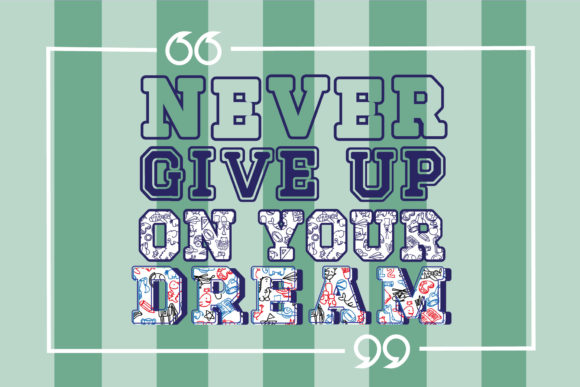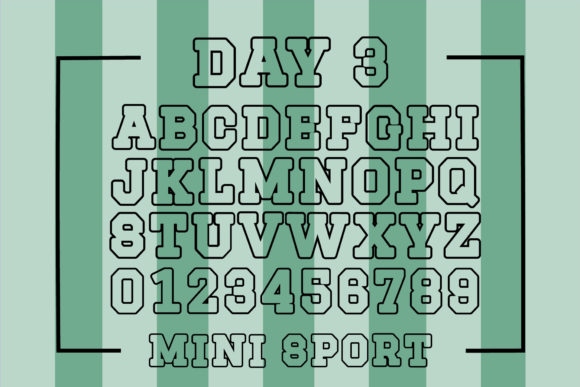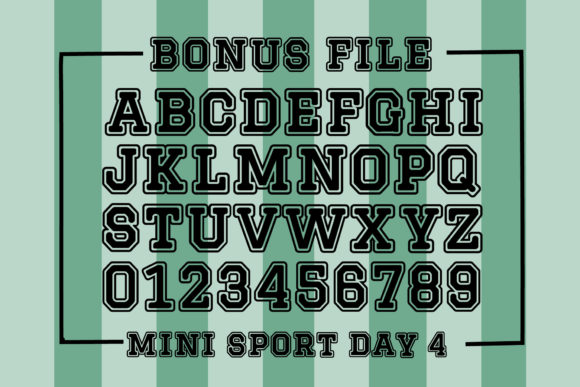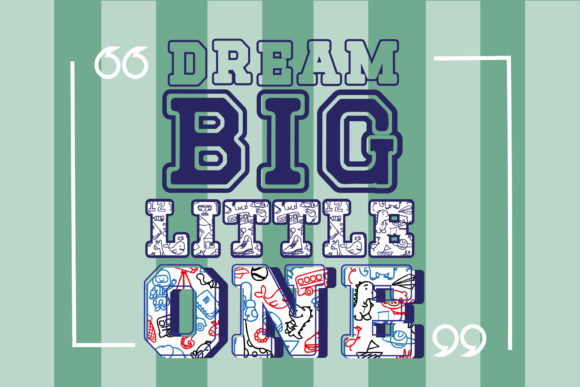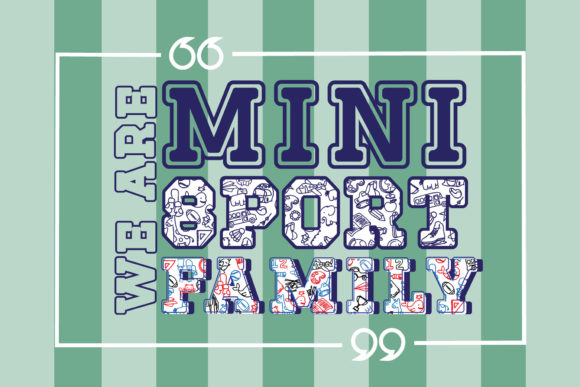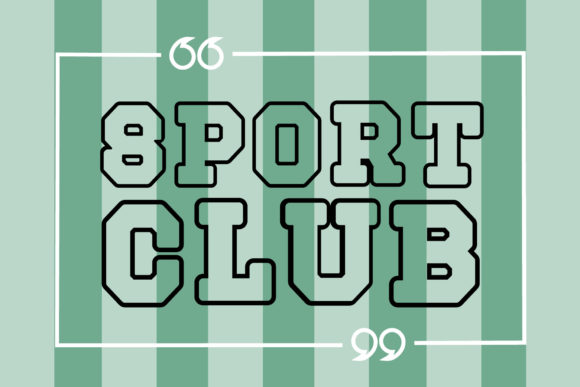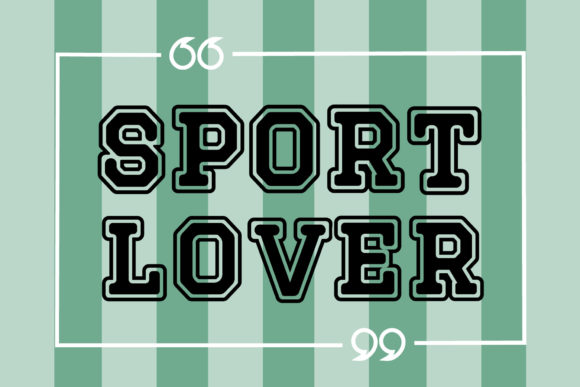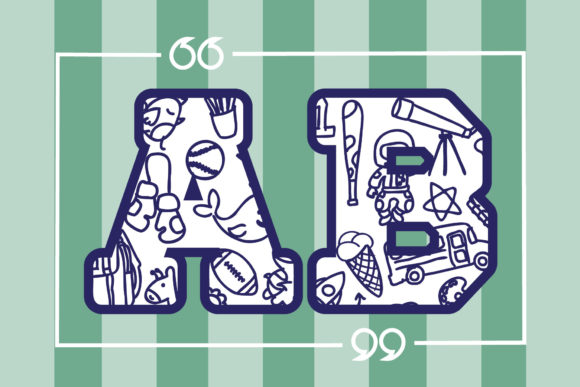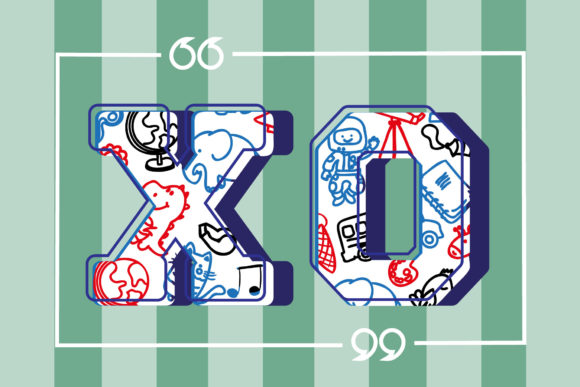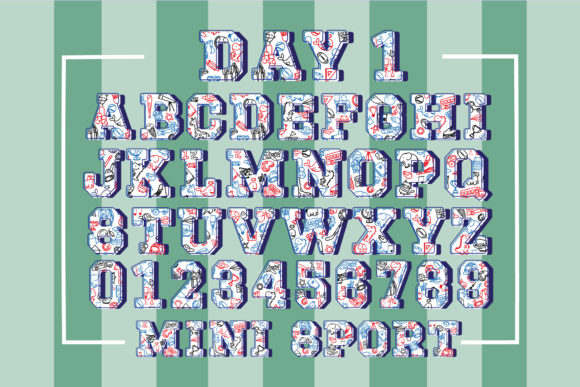
Mini Sport Font
Mini Sport is an exciting and vibrant color font that captures the spirit of playfulness and authenticity. With its unique and fun design, it is the ideal choice for any children’s activity or school project. Whether you’re designing a sports-themed poster, creating educational materials, or working on a playful craft, Mini Sport will add a touch of energy and excitement to your projects.
The font’s lively and dynamic appearance makes it highly engaging for children and creates a sense of adventure and enthusiasm. Its colorful elements and playful letterforms contribute to its appeal, making it a standout choice for any design that aims to capture the attention and imagination of young audiences.
Embrace the playfulness and authenticity of Mini Sport in your projects, and let your creativity soar. Whether you’re creating materials for children’s activities, school projects, or any other design endeavor, this font will infuse your work with a sense of joy and excitement. Enjoy exploring the possibilities and have fun with Mini Sport! If you have any more questions, feel free to ask.